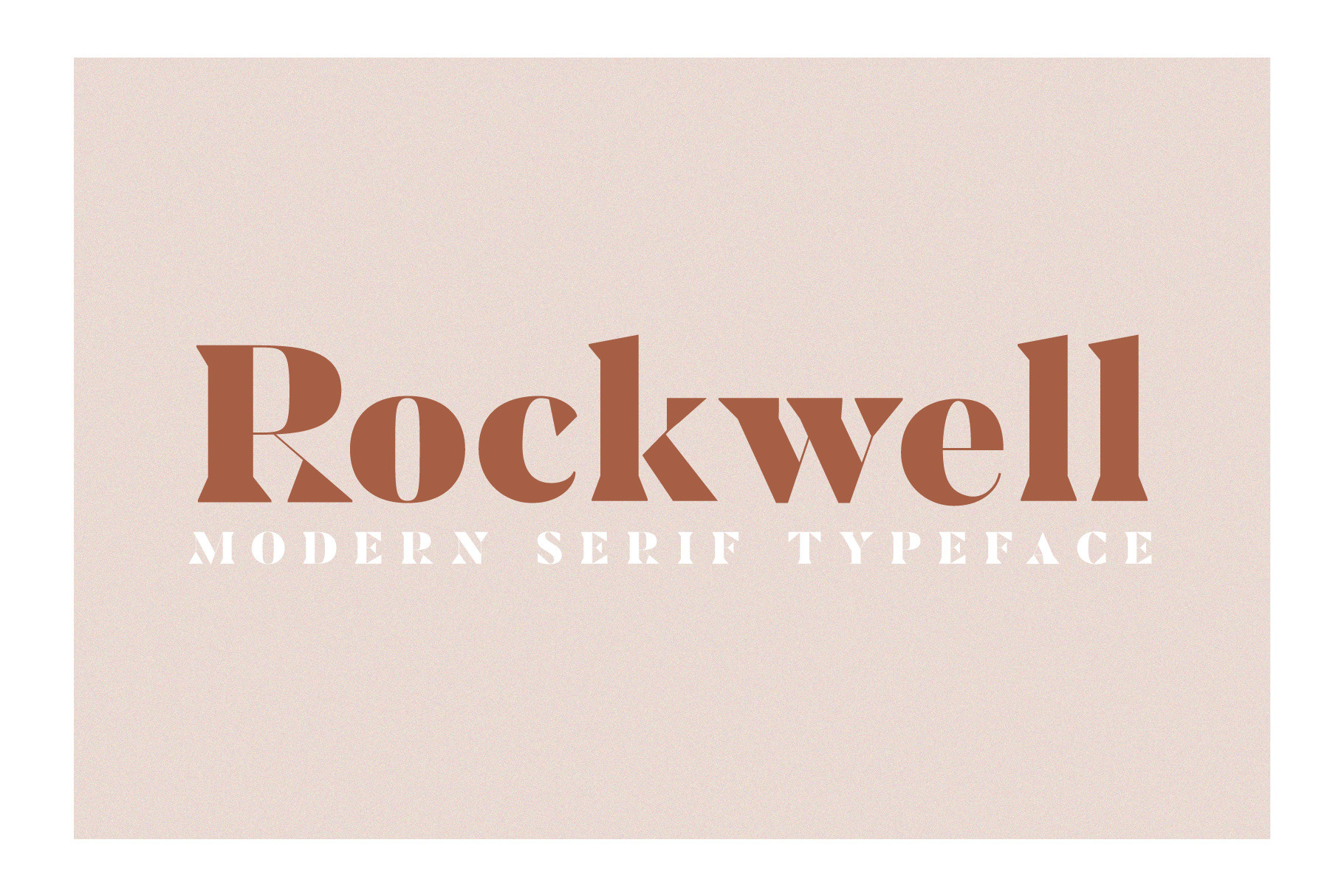
ROCKWELL- Modern Serif Font
Rockwell is a wedge serif font that is sure to stand out! A little bit retro and a bit modern, Rockwell is great for logos, editorial or web design. The unique sharp serifs mixed with thin strokes give off a bold mid century architectural vibe.